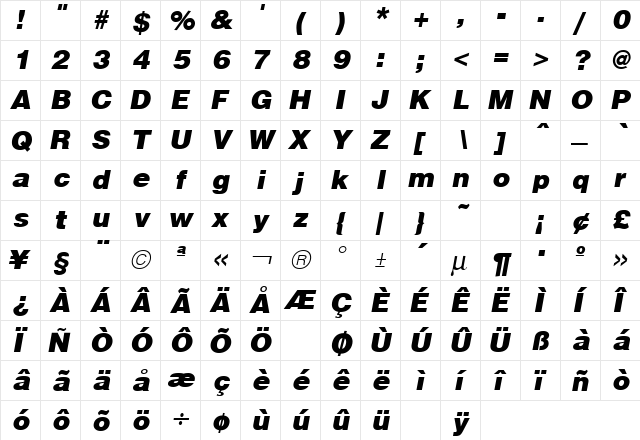
Hallmarke Black Italic
Design Context for Hallmarke Black Typeface
Hallmarke Black offers clean, dependable letterforms without strong stylistic allegiance, making it a practical choice for designers who need flexibility. Its italic angle brings a sense of urgency and motion to the letterforms.